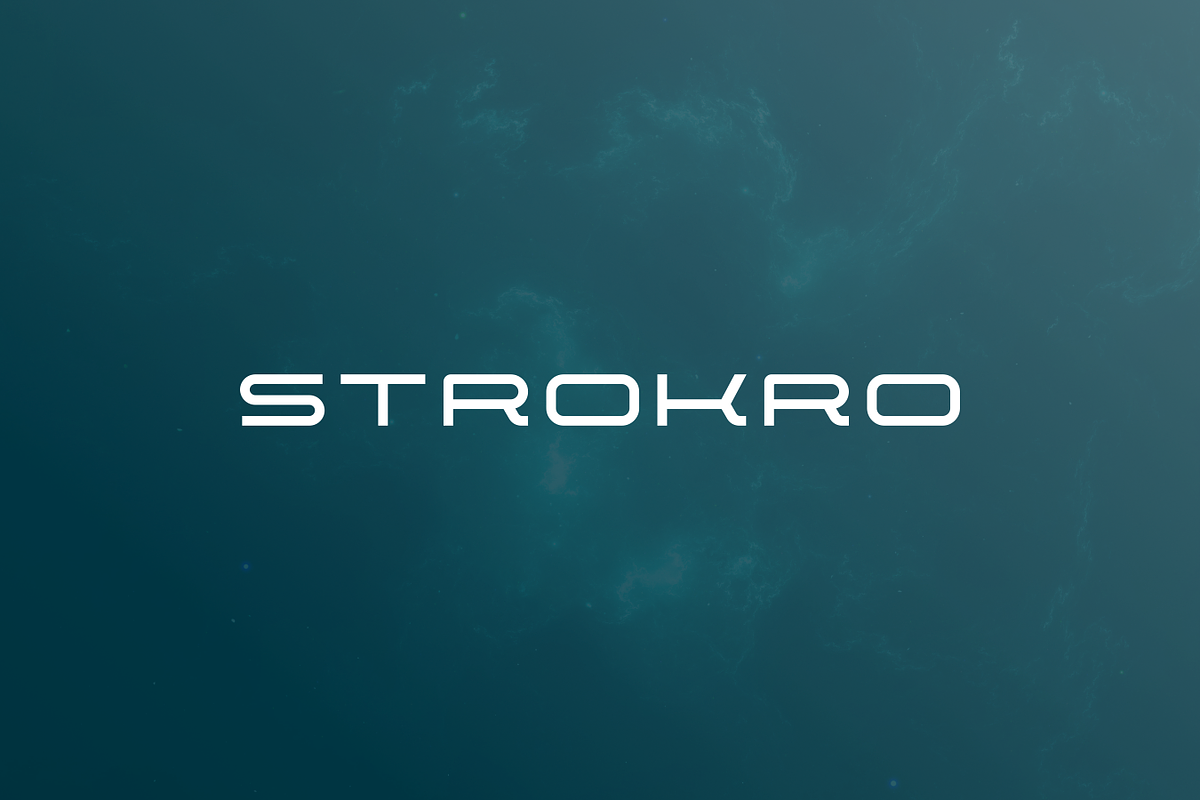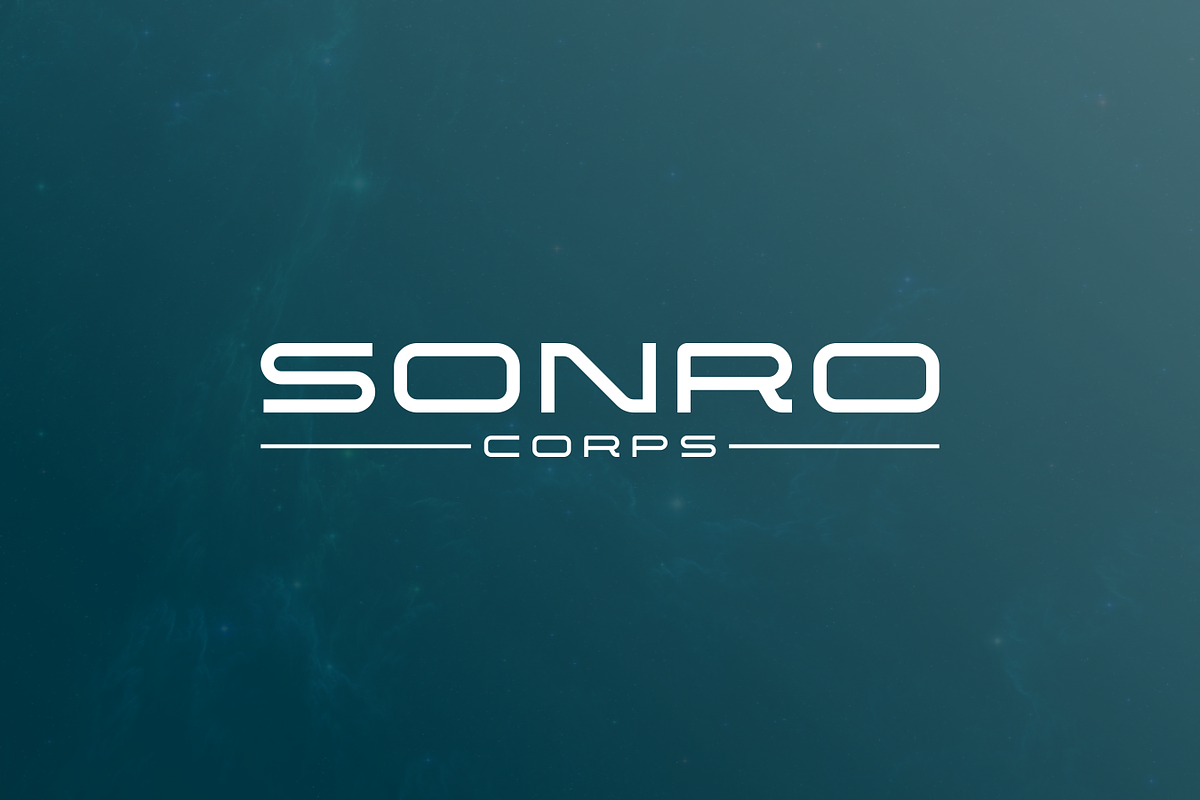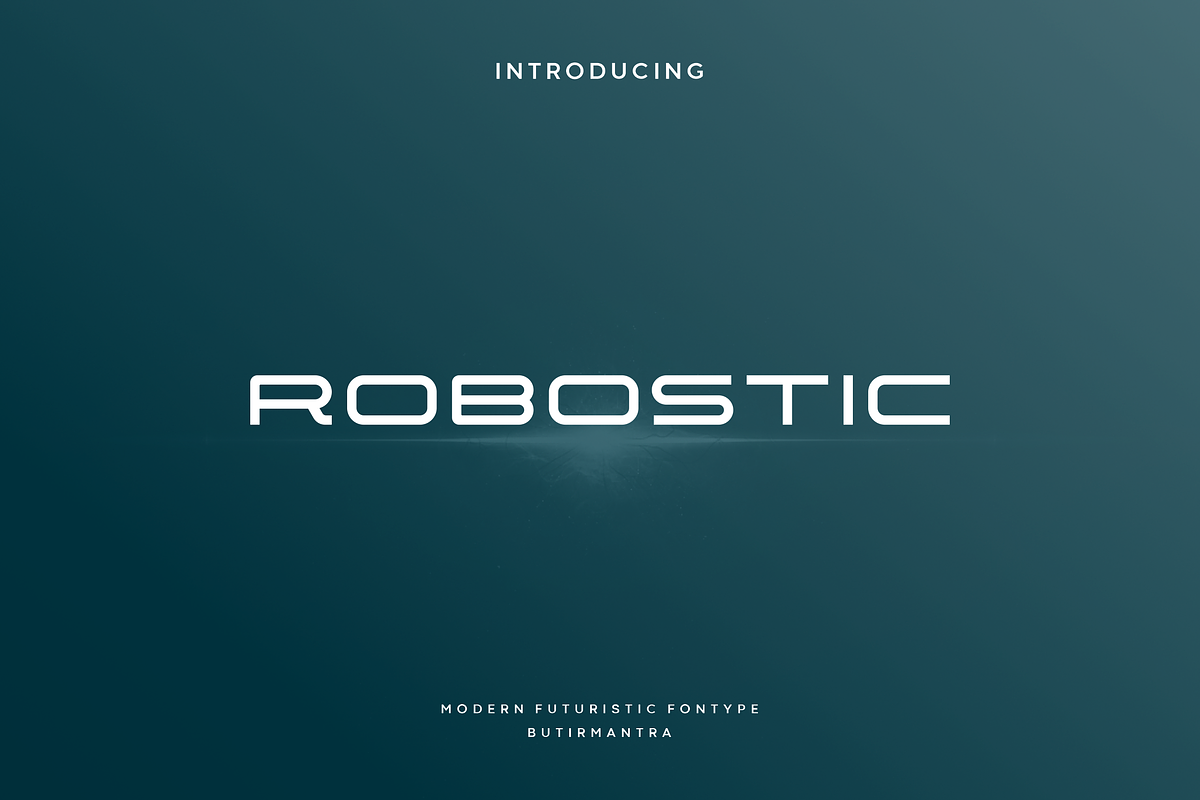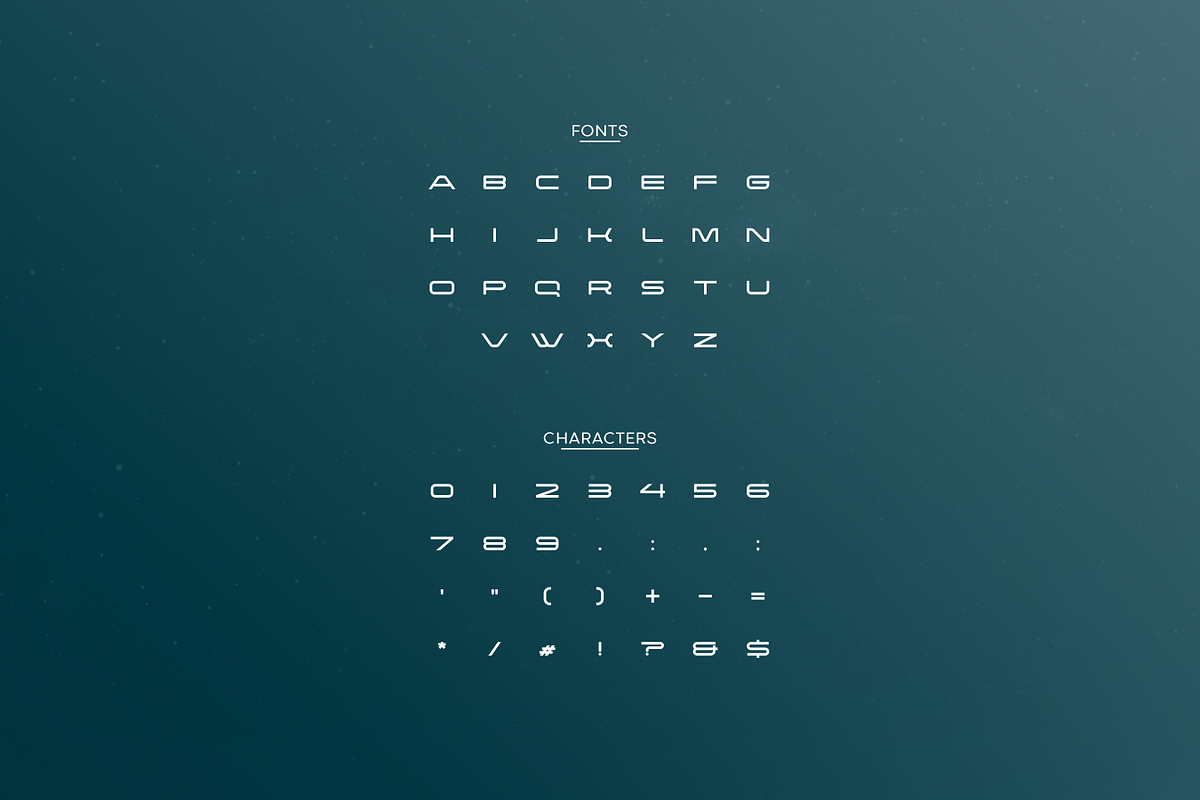
Robostic - Modern Futuristic Font
Robostic is a modern, elegant and futuristic look font. This font would be ideal for writing web designs, business cards, or just about anything else that requires a unique touch. With a sophisticated concept and very elegant shape that will look modern on future technology designs.
- Punctuation & Number